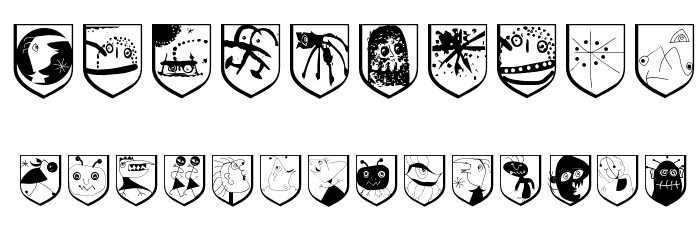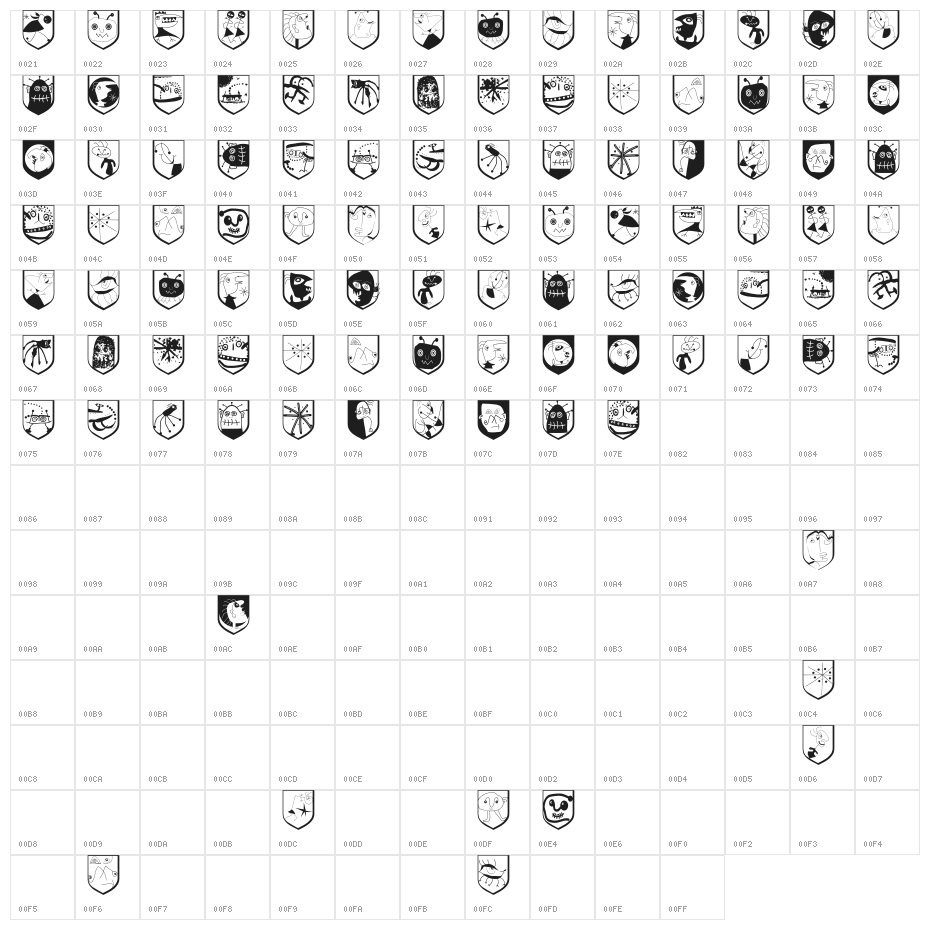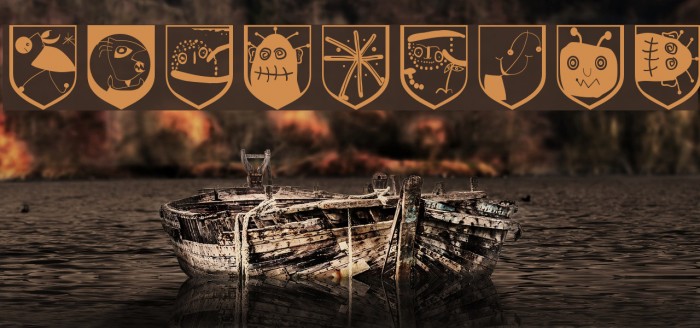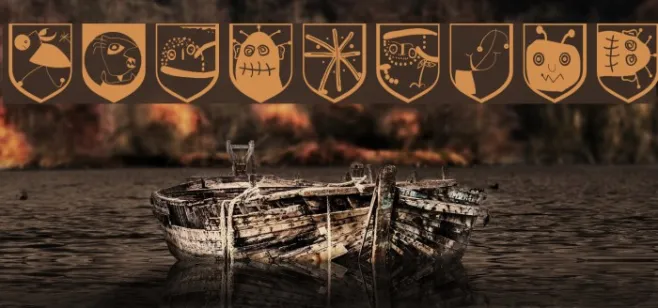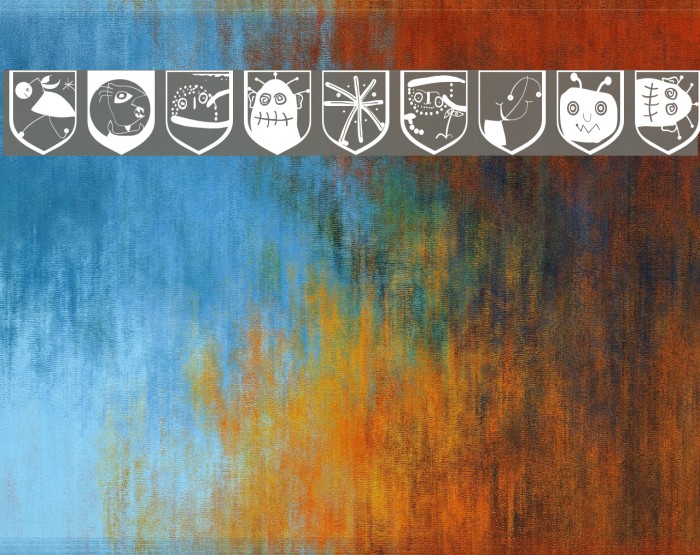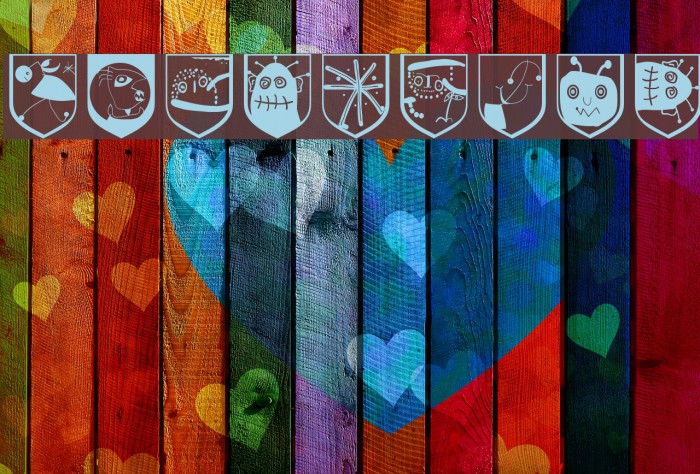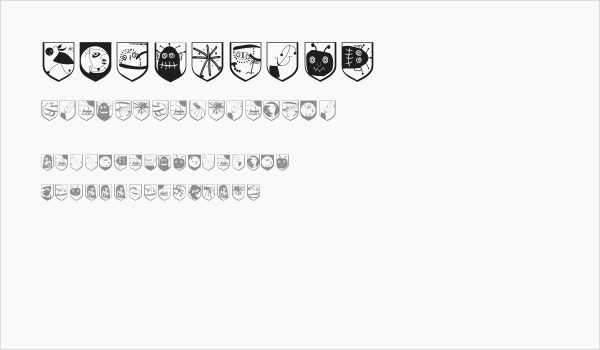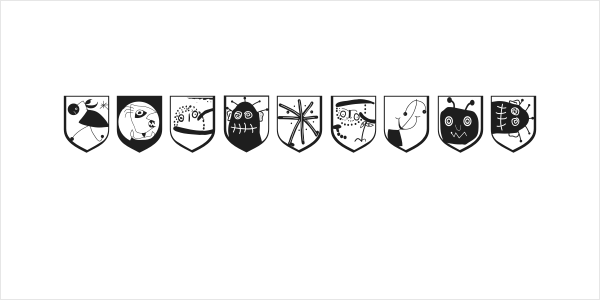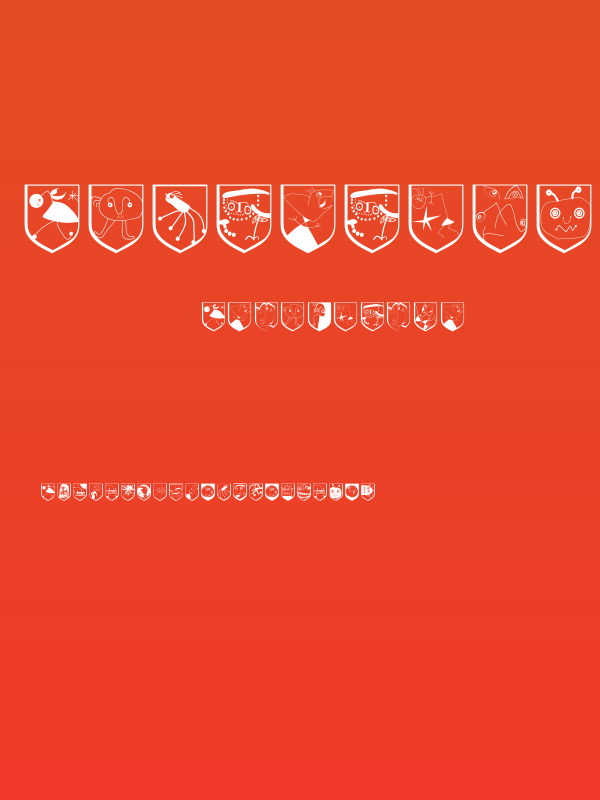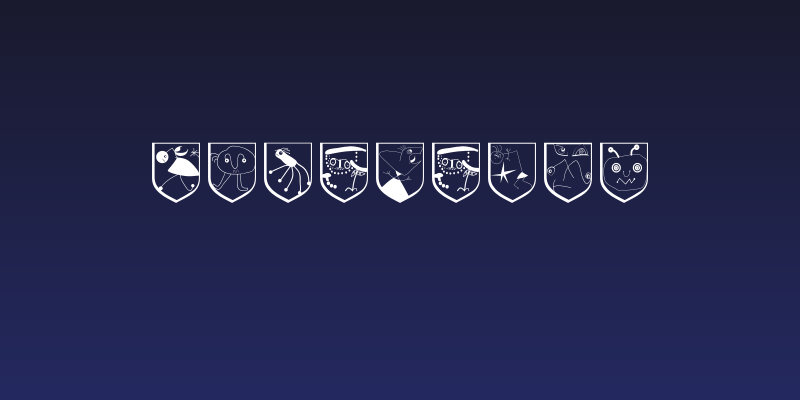
TodayArms Font
TodayArms Description
A highly decorative and whimsical display font featuring shield-shaped glyphs, each containing a unique, abstract, or cartoonish illustration. The characters are not traditional letterforms but rather playful drawings, making the set more suitable for illustrative or thematic purposes rather than standard text.
| Overall Style | Decorative, Whimsical, Artistic |
| Use Case | Logos, Posters, Illustrative titles, Themed graphics |
| Proposed Projects | ChildrenΓ’β¬β’s books, party invitations, themed posters, creative branding, art projects, game graphics. |